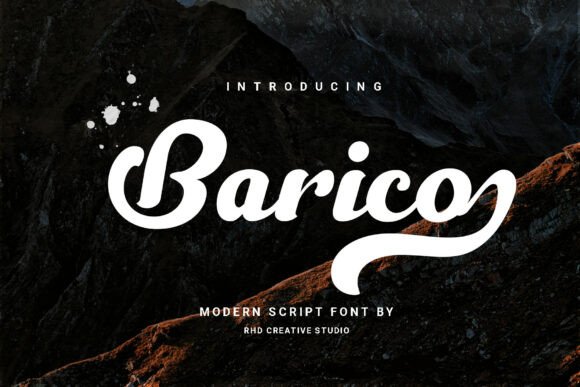
Introducing Barico Font: A Timeless Handwritten Font for Stunning Designs
In the world of typography, fonts play a crucial role in making or breaking a design. A well-chosen font can elevate your brand’s visual identity, convey your message effectively, and leave a lasting impression on your audience. If you’re on the hunt for a font that exudes elegance, sophistication, and a touch of personality, look no further than Barico Font. In this article, we’ll dive into the world of Barico Font, exploring its unique features, uses, and benefits.
What is Barico Font?
Barico Font is a lovely and timeless handwritten font that has captured the hearts of designers and typography enthusiasts alike. Its unique blend of classic and modern elements makes it an excellent choice for creating eye-catching logos, branding, and quotes. Each letter in the Barico Font has a distinct and beautiful touch, which will breathe life into your designs and set them apart from the rest.
Key Features of Barico Font
- Handwritten elegance: Barico Font boasts a beautiful, handwritten aesthetic that adds a personal touch to your designs.
- Unique letterforms: Every letter in the Barico Font has a distinct character, making your text-based designs truly stand out.
- Timeless appeal: The font’s classic design ensures it won’t go out of style, making it a valuable addition to your typography collection.
- Versatility: Barico Font is suitable for a wide range of design applications, from logos and branding to quotes and social media graphics.
Uses and Applications of Barico Font
Barico Font’s versatility makes it an excellent choice for various design projects. Here are some of the most popular uses and applications:
- Logo design: Create stunning logos that showcase your brand’s personality and values.
- Branding: Develop a consistent visual identity across your brand’s marketing materials, including business cards, brochures, and website.
- Quotes and typography: Add a touch of elegance to your quote-based designs, social media graphics, and inspirational posters.
- Packaging design: Elevate your product packaging with Barico Font’s unique and eye-catching style.
In conclusion, Barico Font is a stunning handwritten font that offers a unique blend of elegance, sophistication, and personality. Its versatility, timeless appeal, and ease of use make it an excellent choice for designers, entrepreneurs, and marketers looking to elevate their brand’s visual identity. Whether you’re creating logos, branding materials, or quotes, Barico Font is sure to make your designs come alive!